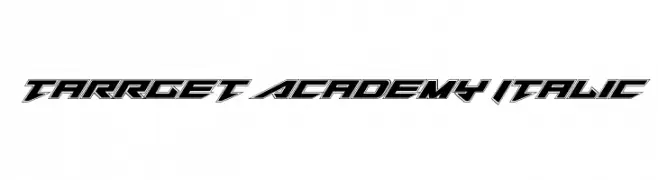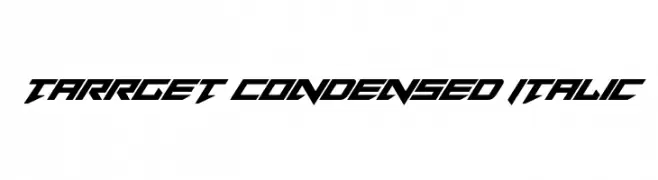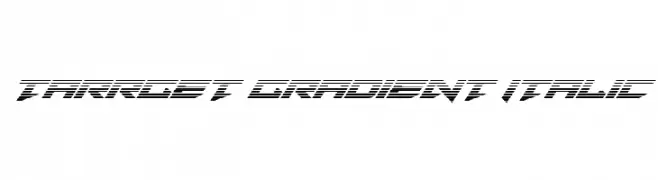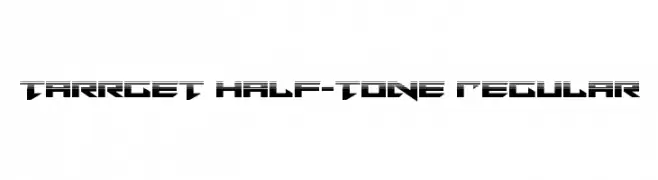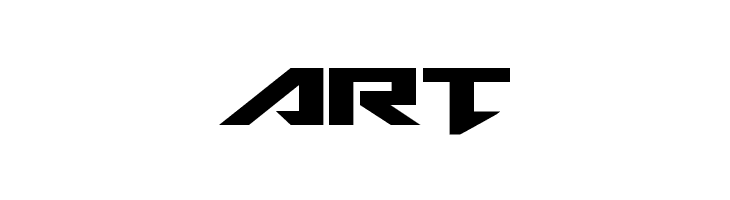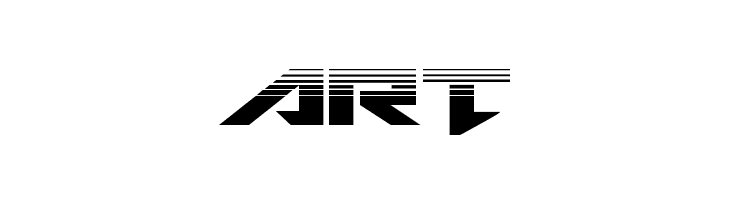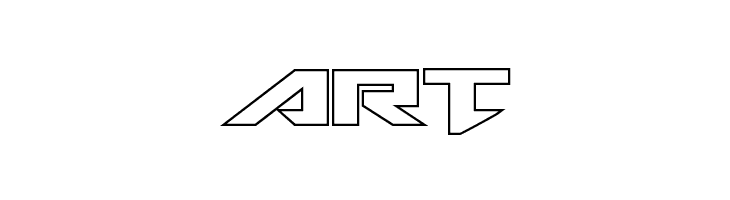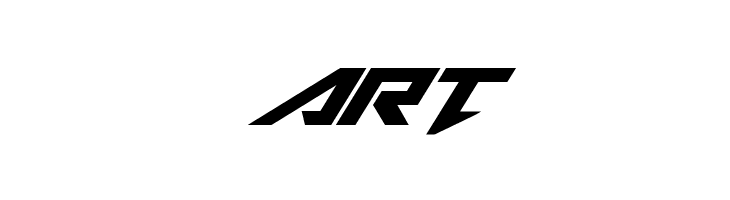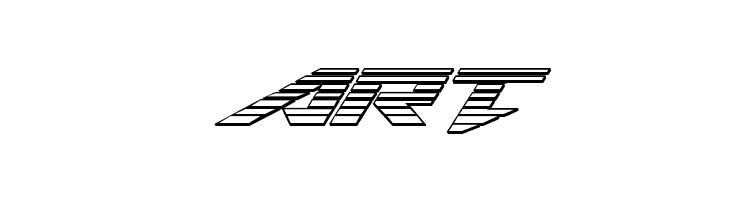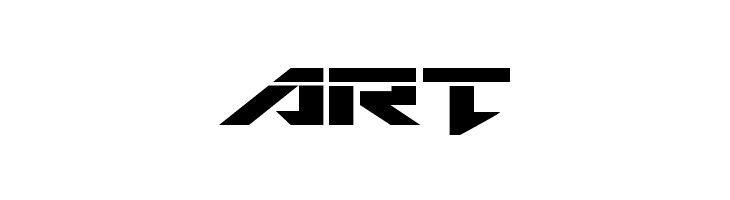
A bold, italicized font with a futuristic and dynamic style.
A bold, angular, and futuristic font with sharp geometric shapes.
A bold, futuristic font with a geometric, high-tech design.
A bold, geometric outline font with a futuristic and angular design.
A bold, condensed, and italicized font with a futuristic and dynamic style.
A futuristic italic font with a striped, dynamic design.
A futuristic, angular font with bold, geometric shapes.
A bold, italicized font with a modern, gradient line effect.
A bold, futuristic font with sharp angles and a leftward slant.
A bold, geometric font with a military-inspired, stencil-like design.